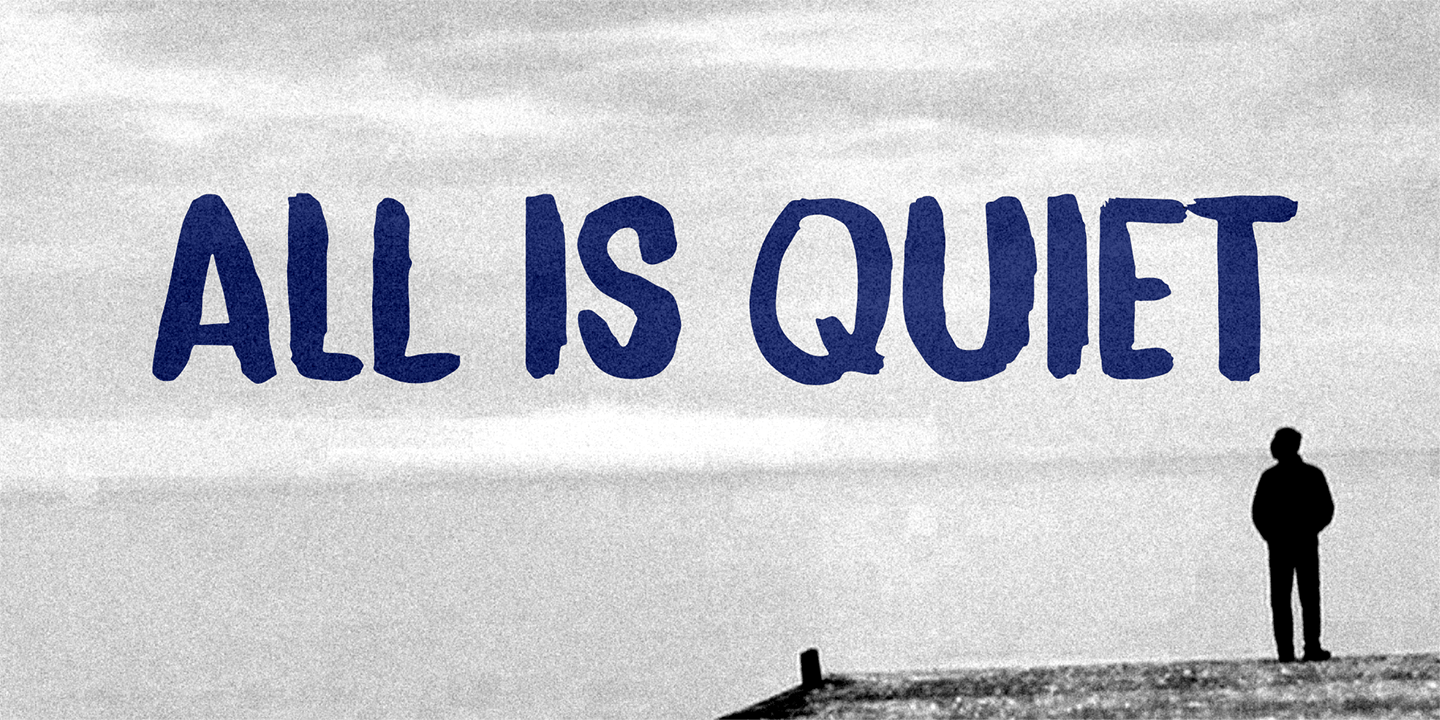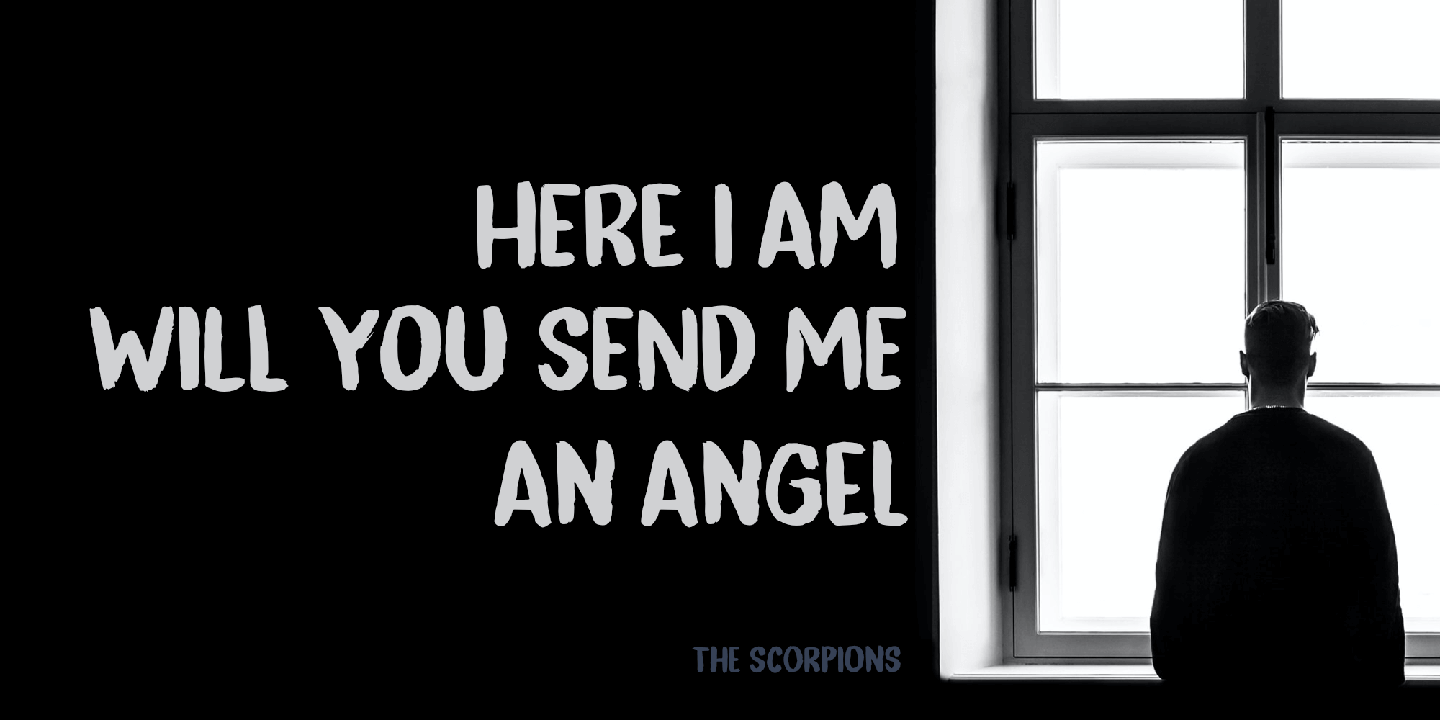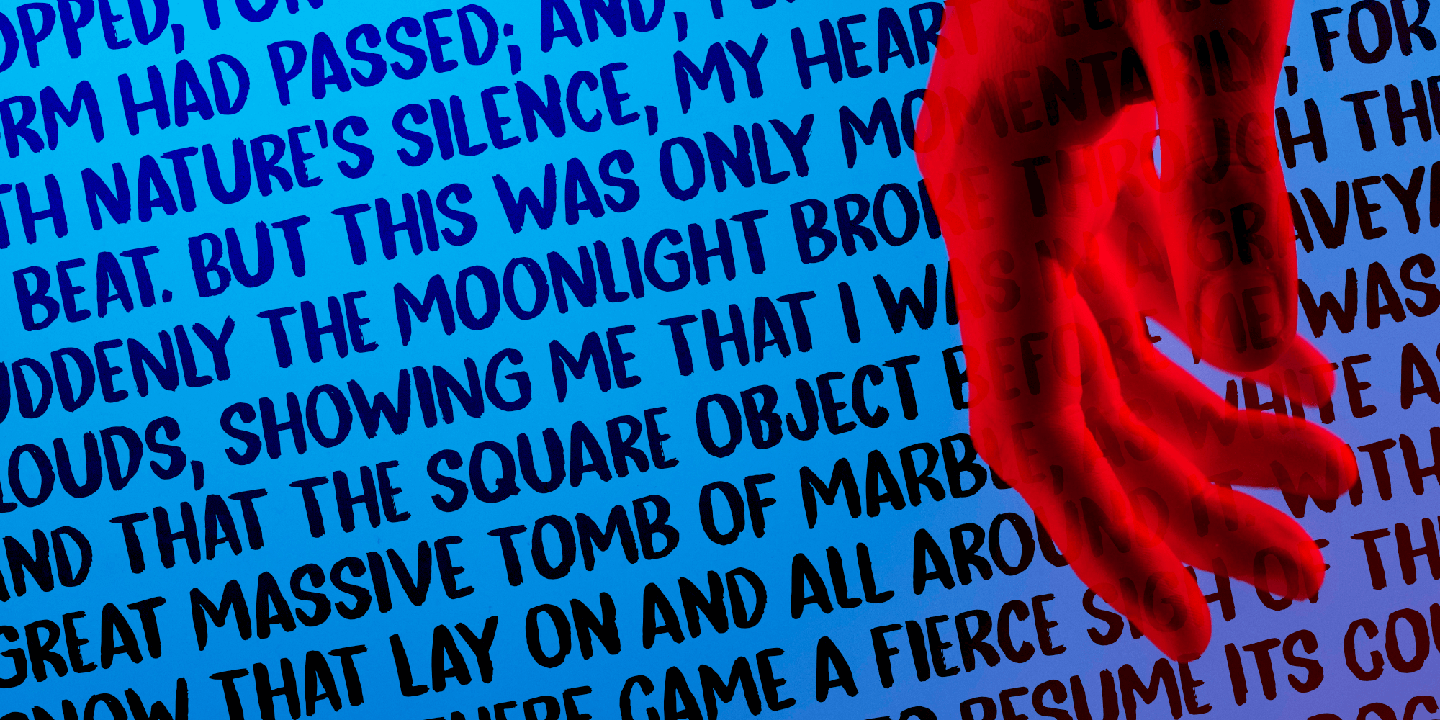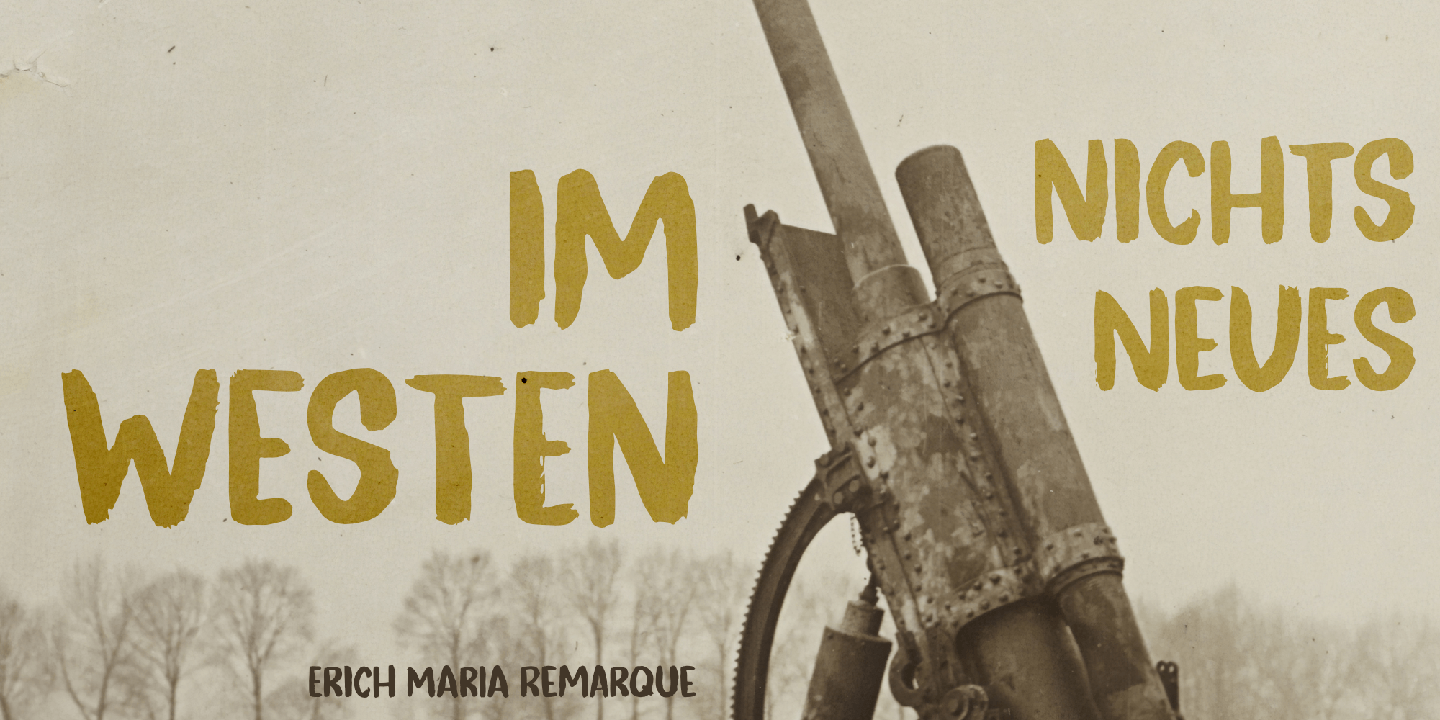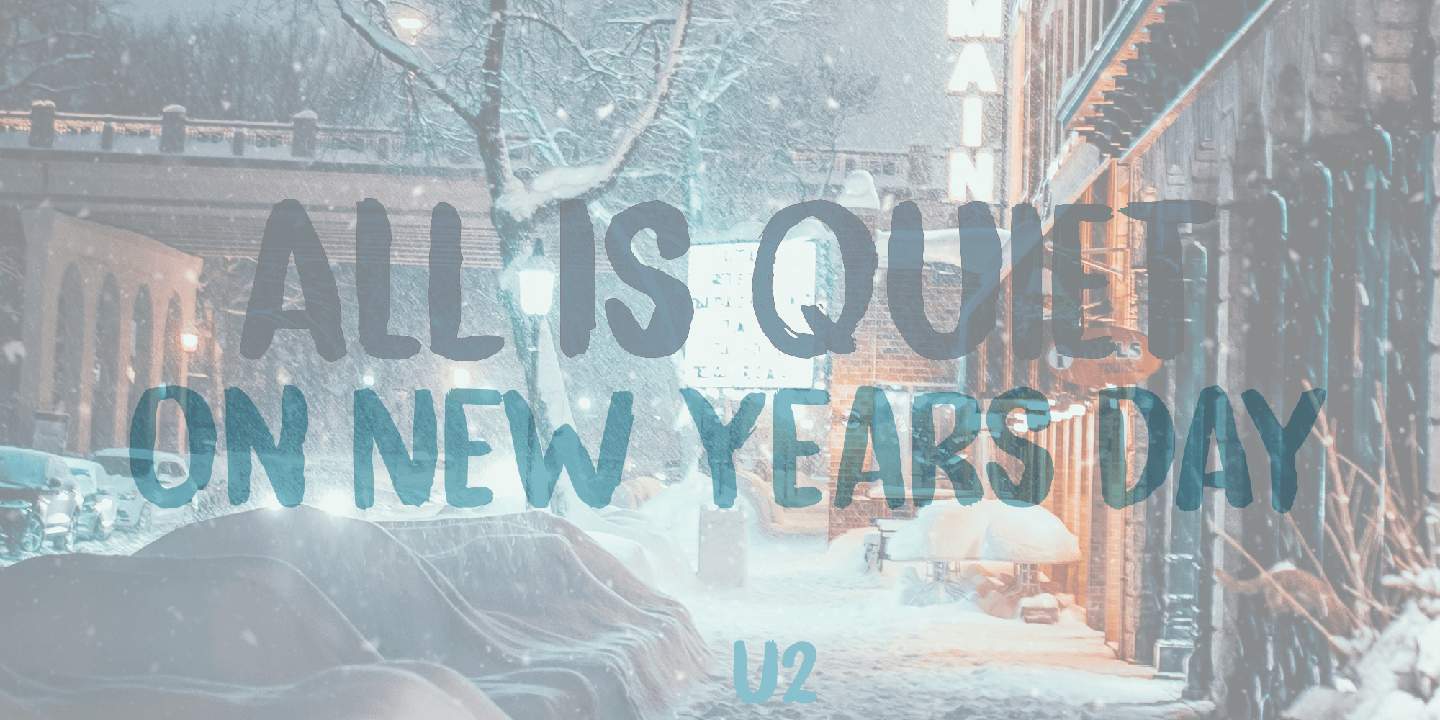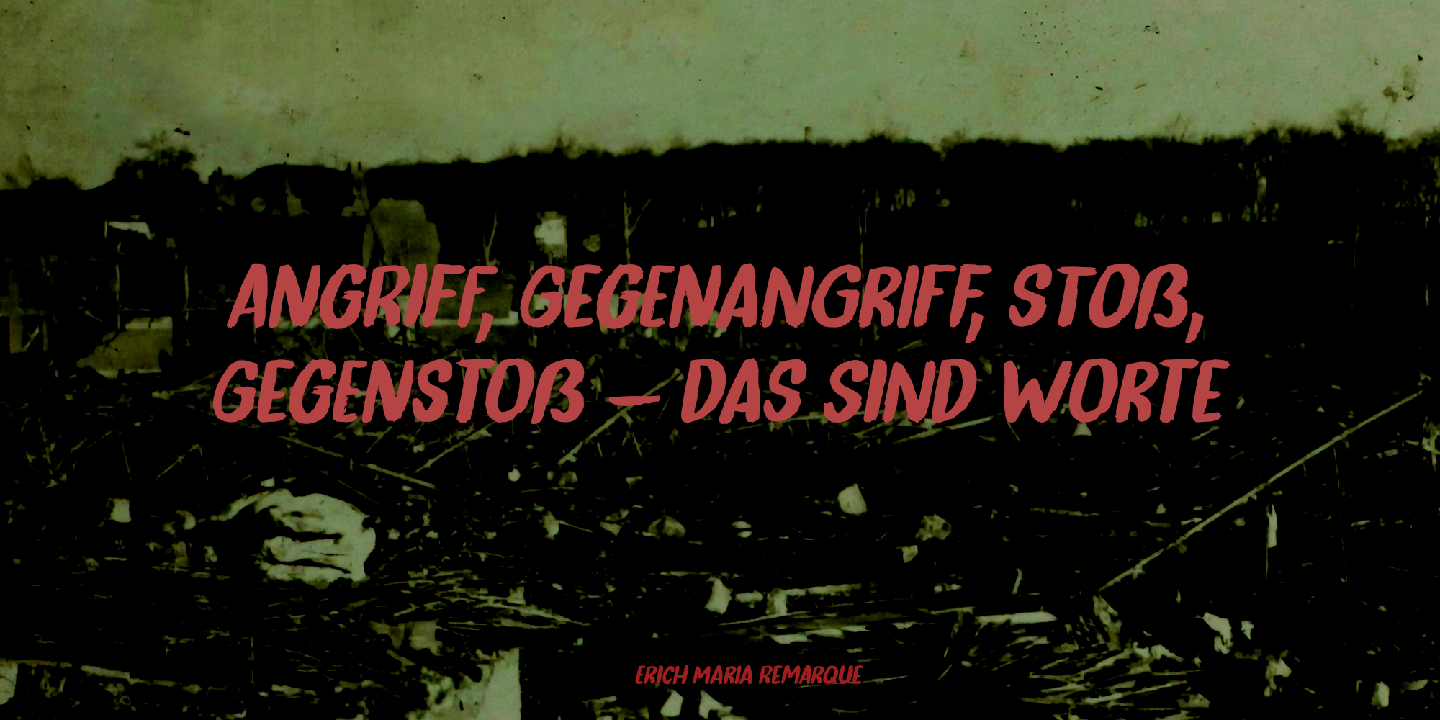
All Is Quiet
The year 2022 went and 2023 came. I can honestly say that last year was a horrible year and I am happy it ended a couple of days ago. The first week after New Year's Eve always fills my head with the U2 song ?New Year's Day? - so I named this font after a line from the lyrics. I also happened to watch a fantastic movie called ?Im Westen Nights Neues?, directed by Edward Berger, but based on a book by Erich Maria Remarque, which, in English, was published as ?All Quiet On The Western Front?.
All Is Quiet is a lovely brush font, which I created using my father in law's Chinese pencil and ink. I can suggest some uses here, but I am convinced you can come up with that yourself.